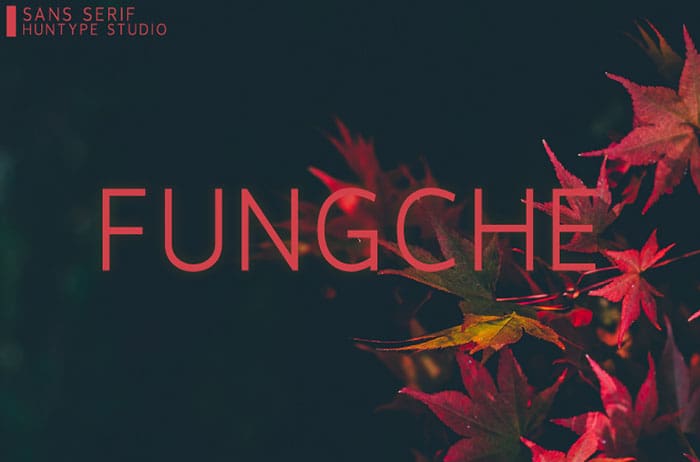
Fungche is a modern sans serif font. With its neat and beautiful arrangement of letters, this typeface will look outstanding in both formal and non-formal designs. Thanks to Mas Anis for sharing this font! Take a look at this portfolio for more of his stunning fonts.
Designed By : Mas Anis